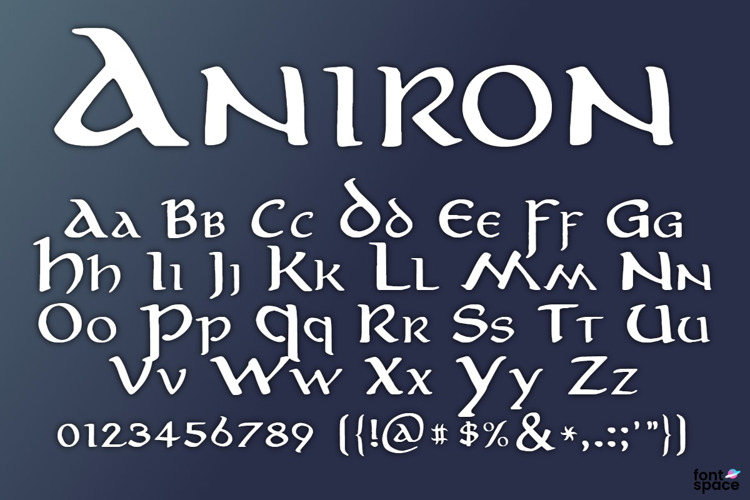
Aniron Font
The Aniron font is a replication of the font used in the front and end credits of Peter Jackson's "The Lord Of The Rings" trilogy. It has been created by analyzing the characters in the movie credits as well as "Lord of the Rings" SEE DVD, where this font is used to a great extent.
Because the resolution on DVD is not high enough, I had to retrace the characters manually. Also, I created some missing characters, as well as the punctuation, numbers, and some other characters. Also, a Cyrillic character set has been created from scratch.
The font contains the following character tables:
- Latin alphabet (the usual)
- Extended Western characters (accent characters like í, ä)
- Cyrillic characters (Russian alphabet)
- Numbers, punctuation etc.
A really versatile,stylish font.
Sceaf Superb for Early Englisc heathens!